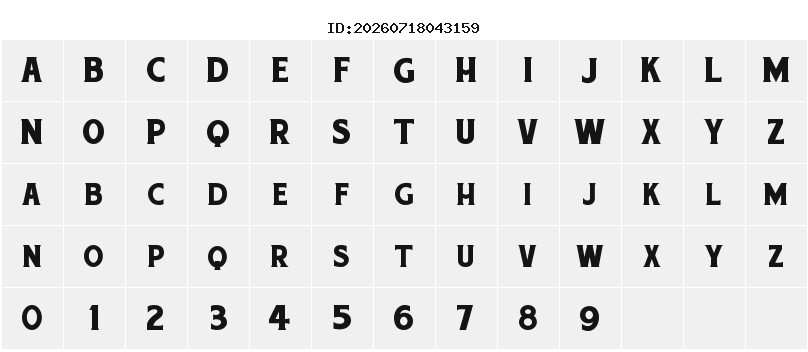
Chuck Noon Preview
• Font Name: Chuck Noon
• Full Font Name: Chuck Noon
• Designer: Twicolabs Design
About Chuck Noon.ttf
Chuck Noon.ttf is a modern, elegant sans-serif font designed for ultimate readability and visual harmony. Perfect for branding, headlines, web design, and print materials.